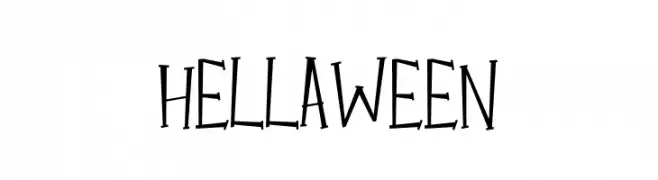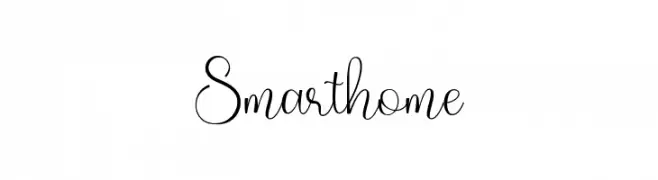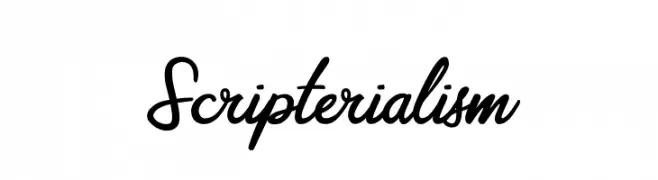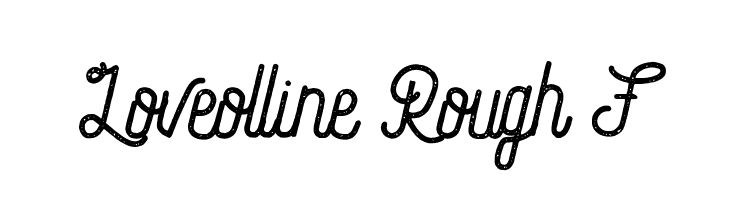
A modern, elegant script font with flowing, cursive letterforms and an italic style.
A quirky, hand-drawn style font with a spooky, playful twist.
A bold, artistic font with circular and looping strokes, offering a modern twist.
An elegant, flowing script font with graceful curves and ornate uppercase letters.
A bold, playful font with a spooky, hand-drawn style.
A classic and elegant cursive script font with flowing letterforms.
A fluid, cursive script font with interconnected strokes and a handwritten feel.
A cursive, handwritten-style font with elegant, flowing characters.
An elegant script font with flowing swashes and intricate details.
A bold, geometric font with a modern and striking design.